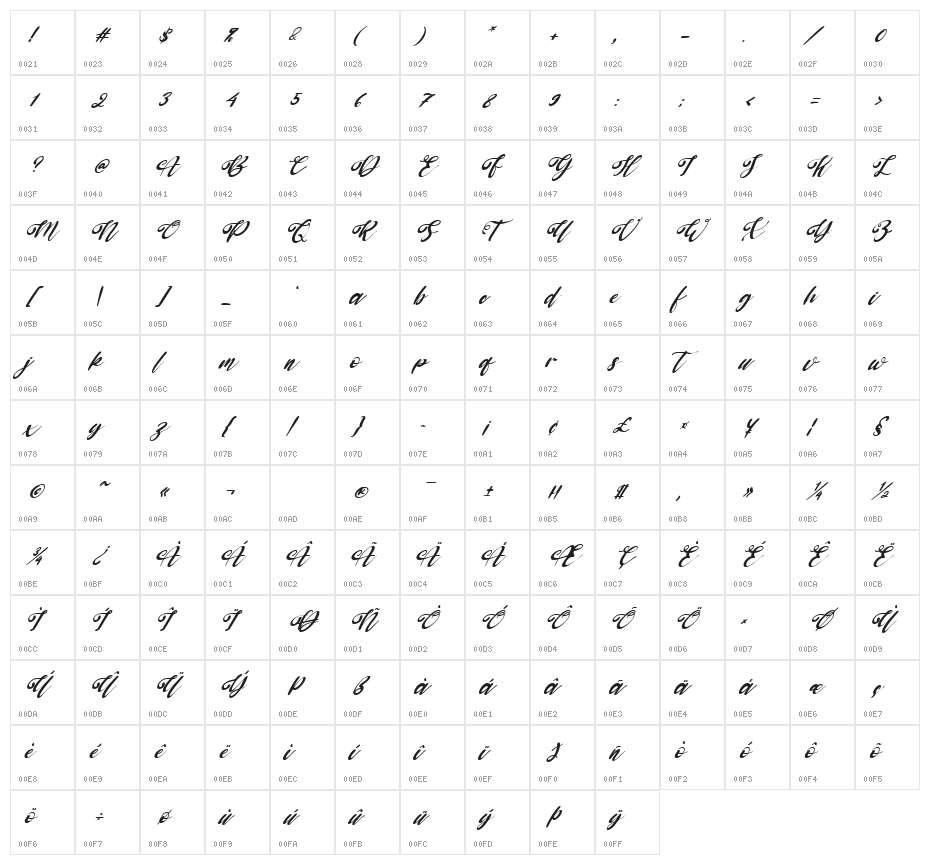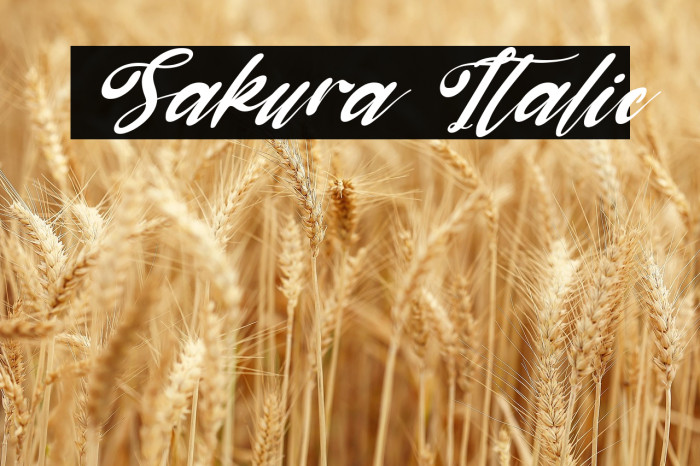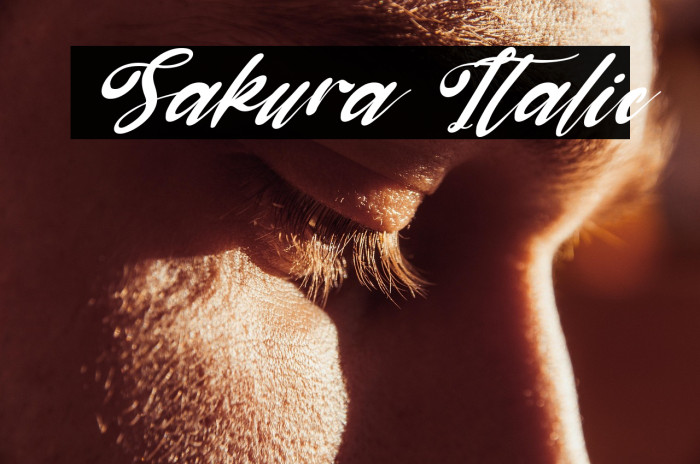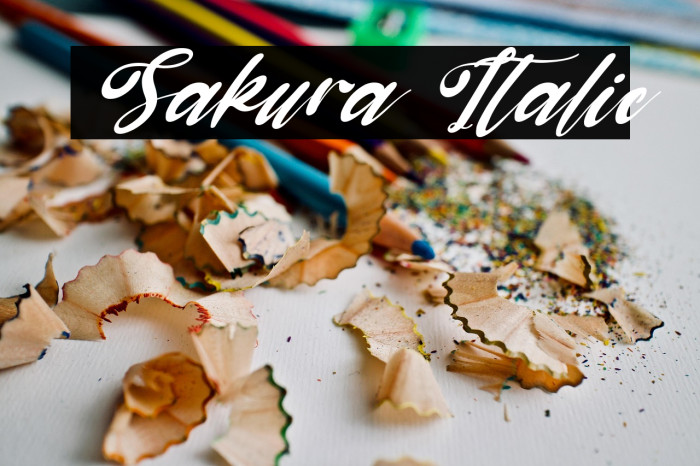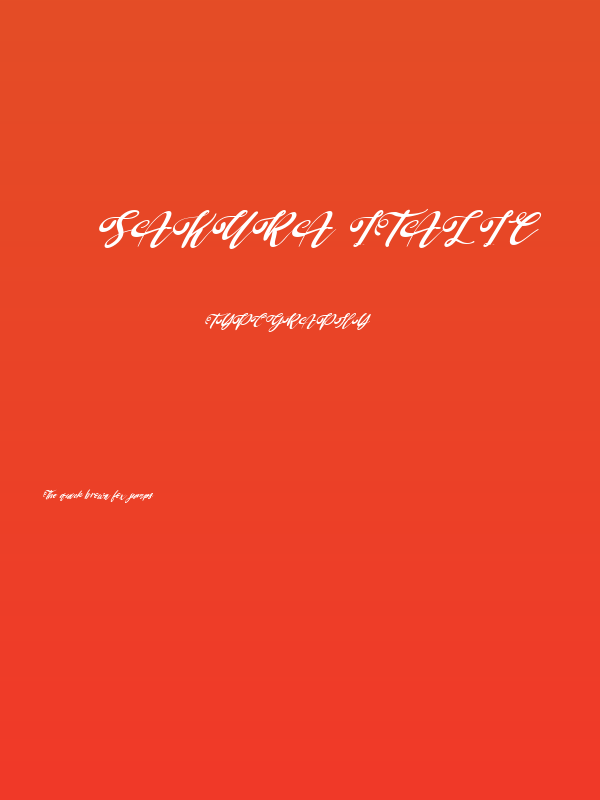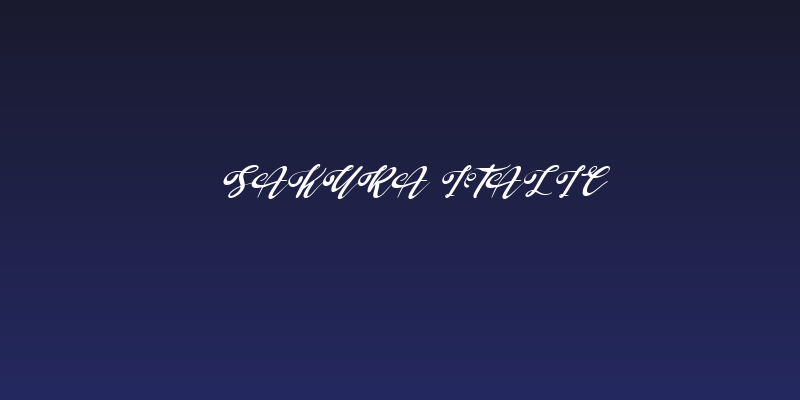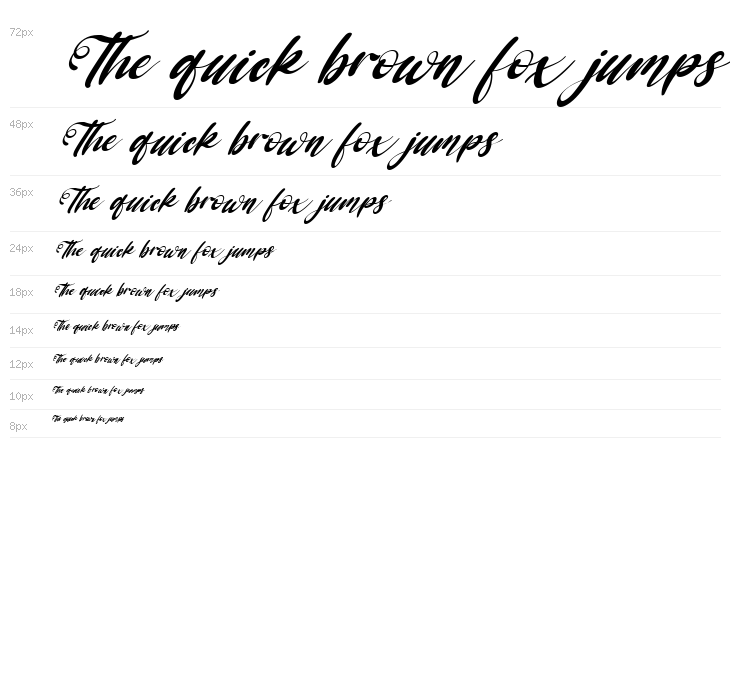
Sakura Italic Font
Sakura Italic Description
This font features an elegant, flowing script style that exudes sophistication and grace. The characters are intricately designed with smooth, sweeping curves and a slight slant, giving it a dynamic and fluid appearance. The uppercase letters are ornate, with decorative flourishes that enhance their visual appeal. The lowercase letters maintain a consistent style, with elongated ascenders and descenders that add to the font's overall elegance. The numerals are equally stylish, maintaining the script's fluidity. Special characters are thoughtfully integrated, ensuring a cohesive look across all glyphs.
| Overall Style | Elegant, Decorative |
| Proposed Projects | Ideal for wedding invitations, elegant branding, luxury packaging, and artistic posters. |